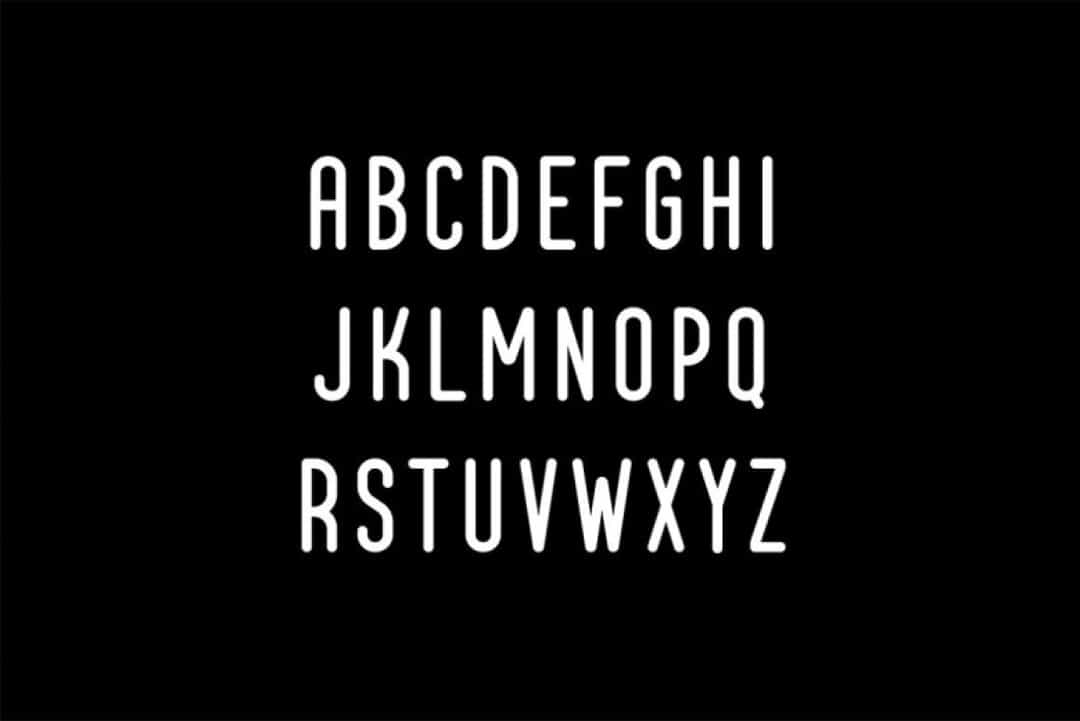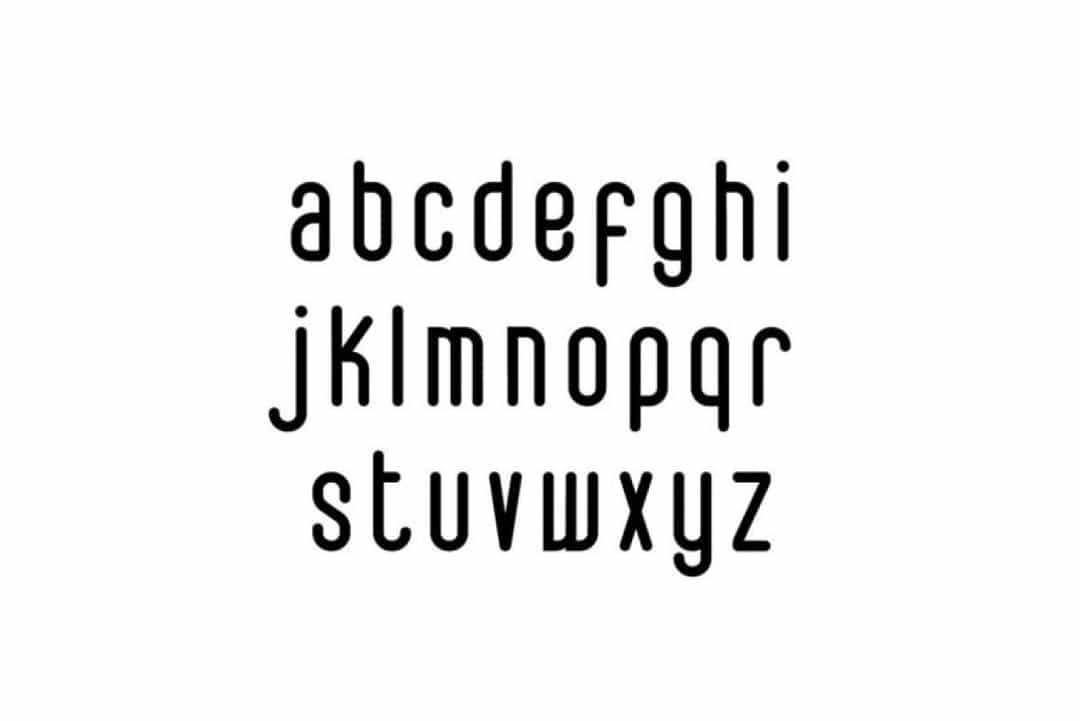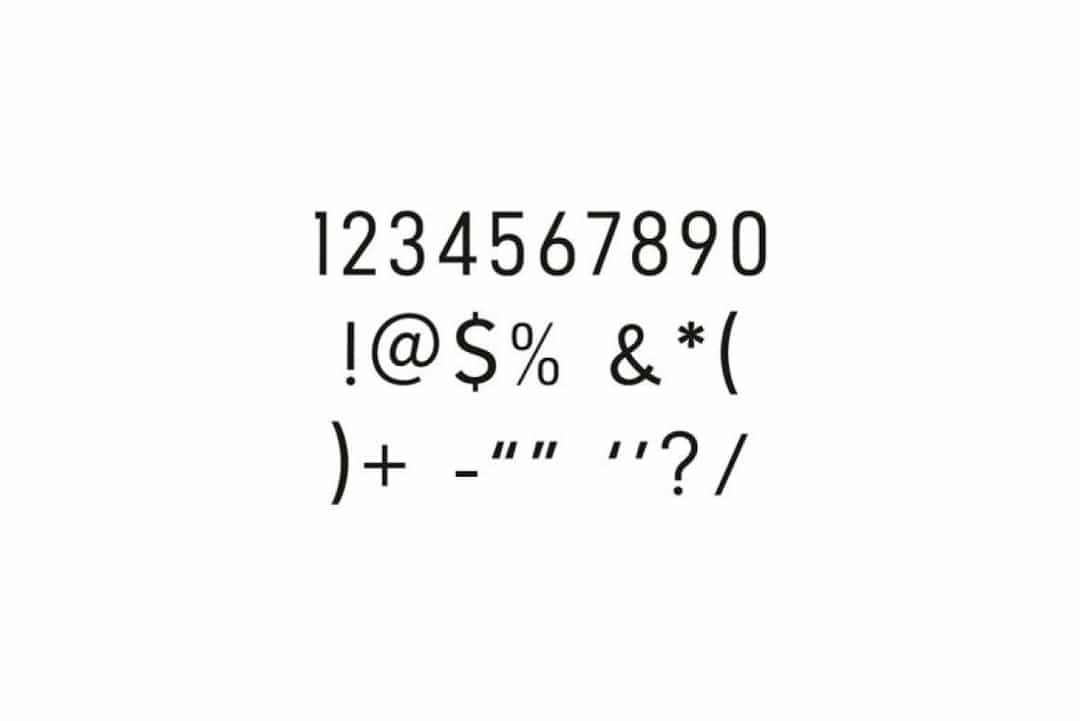
Metrofutura can be described as an elegant and contemporary condensed sans serif font that is both modern and condensed, perfect for logo design, stationery, signature wedding invites, typography quotes for book covers or magazine covers, website headers or clothing packaging design and branding projects – this font offers numerous uses in design applications! Metrofutura font can also be found used extensively by fashion brands for branding campaigns.